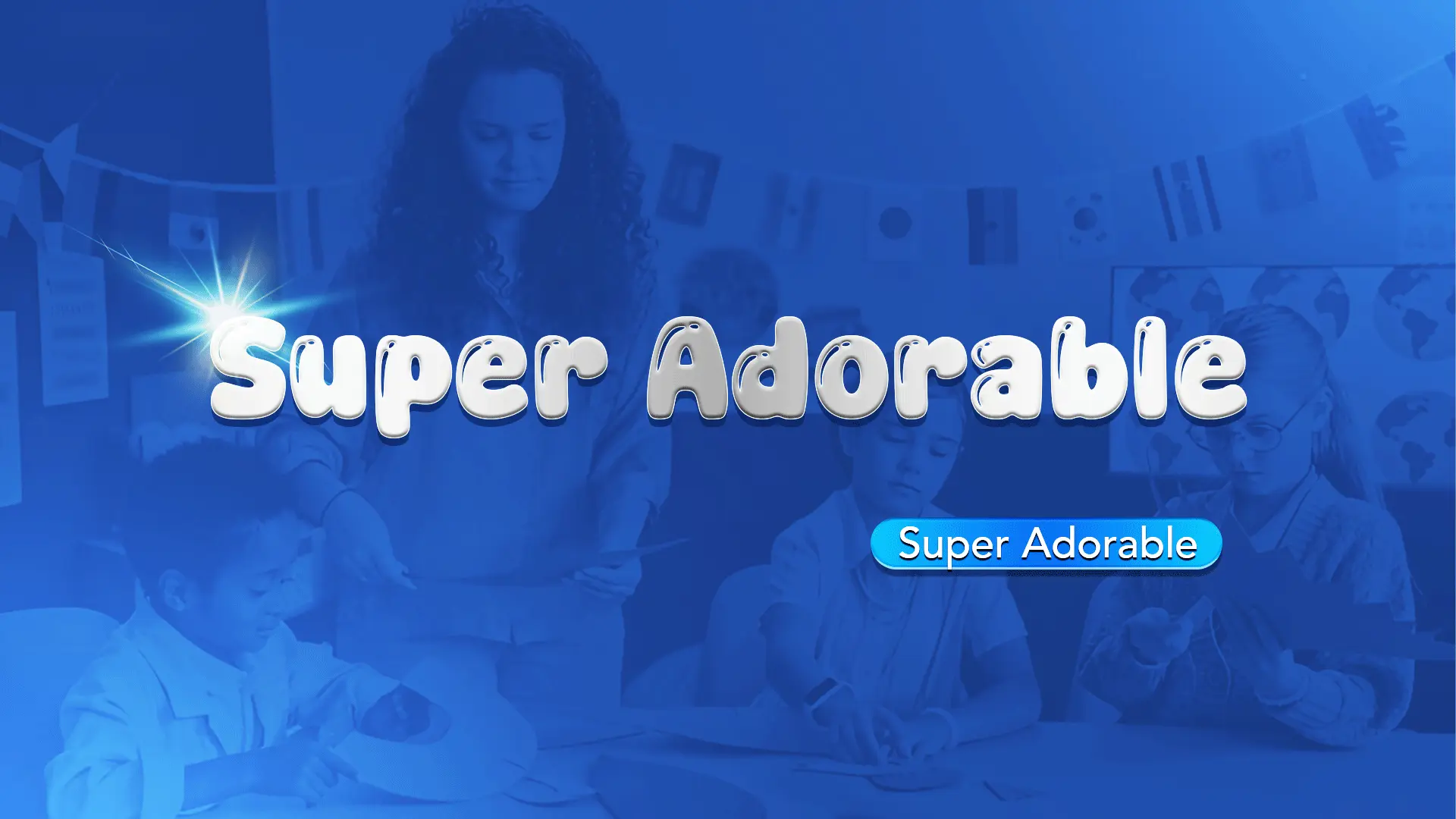
The Super Adorable font family may be ideal for you if you enjoy working on an artistic design project. The lively, expressive look of this typeface, which was created by fsuarez913, makes it ideal for Children's Content Like Children’s books, Flashcards or Worksheets, Kids’ party invitations, Labels and name tags. Also Crafts and DIY Projects, School & Classroom Materials, We can use on YouTube thumbnails – Especially for children's content or DIY channels and Kids' product packaging and other light-hearted visual projects.
Regular, Regular are the two primary font styles of the Super Adorable font family. You may build dynamic, visually appealing text layouts with the distinct flair that each style offers. With crisp, readable lines and a relaxed tone.